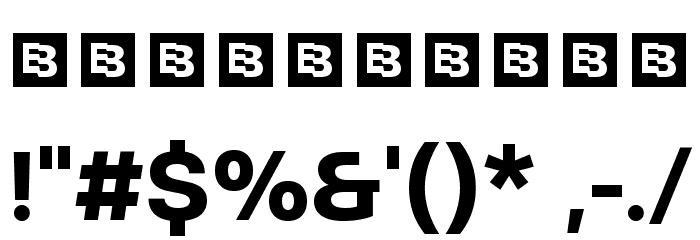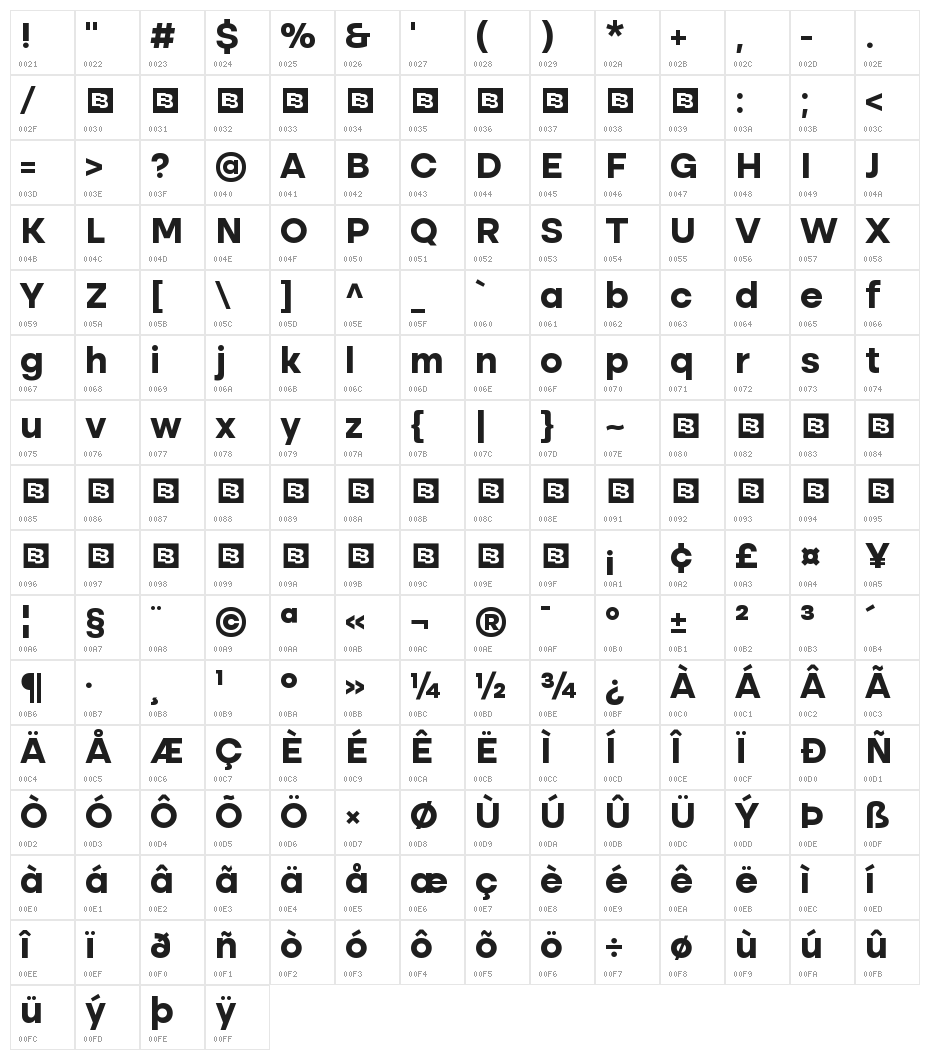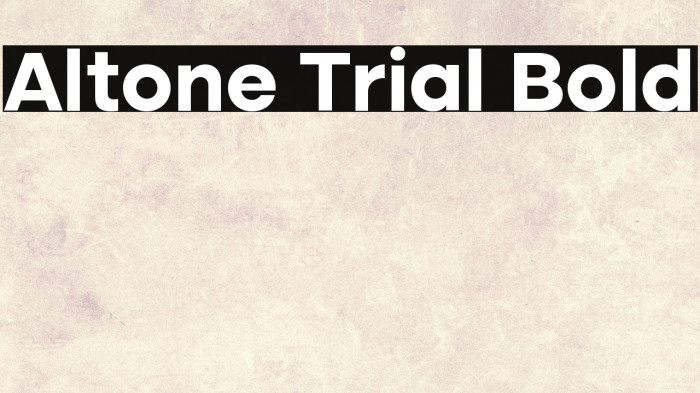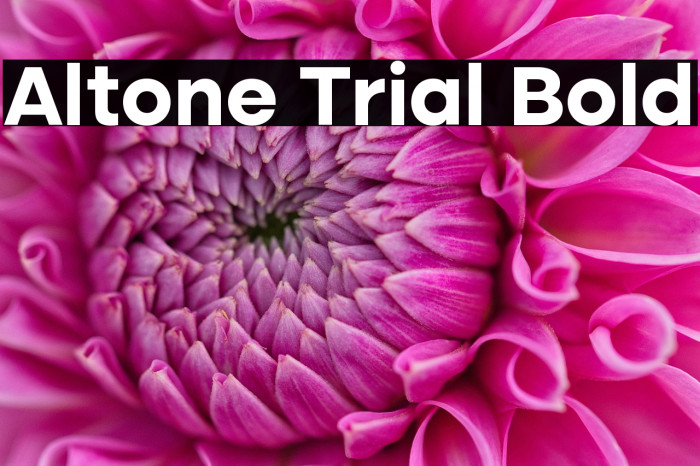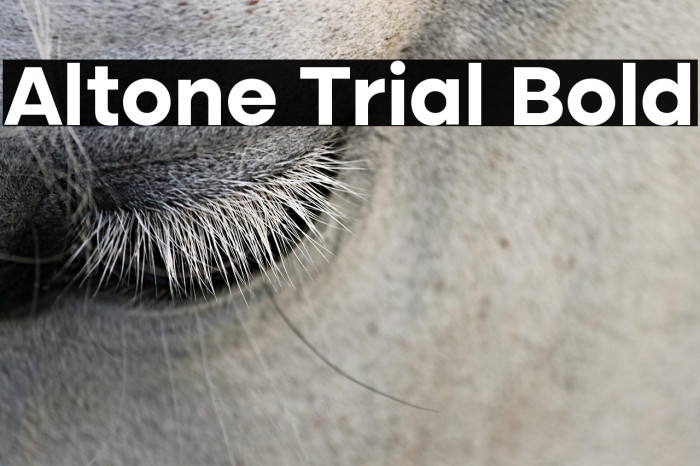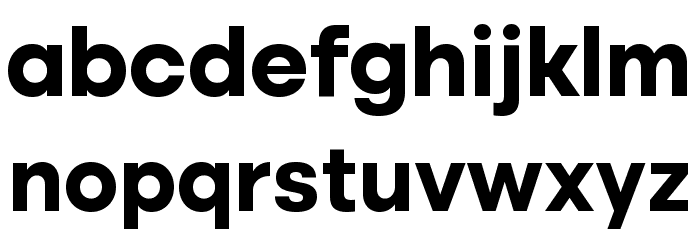
Altone Trial Bold Font
Altone Trial Bold Description
This font is characterized by its bold and robust appearance, featuring thick strokes and a strong presence. The uppercase and lowercase letters are designed with a consistent weight, providing a uniform look across all characters. The numerals and special characters maintain the same boldness, ensuring readability and impact. The overall design is clean and modern, making it suitable for various applications where a strong visual statement is required. The spacing between characters is normal, allowing for clear legibility without appearing cramped or overly spaced.
| Proposed Projects | Ideal for headlines, posters, branding, and any project requiring a bold statement. |